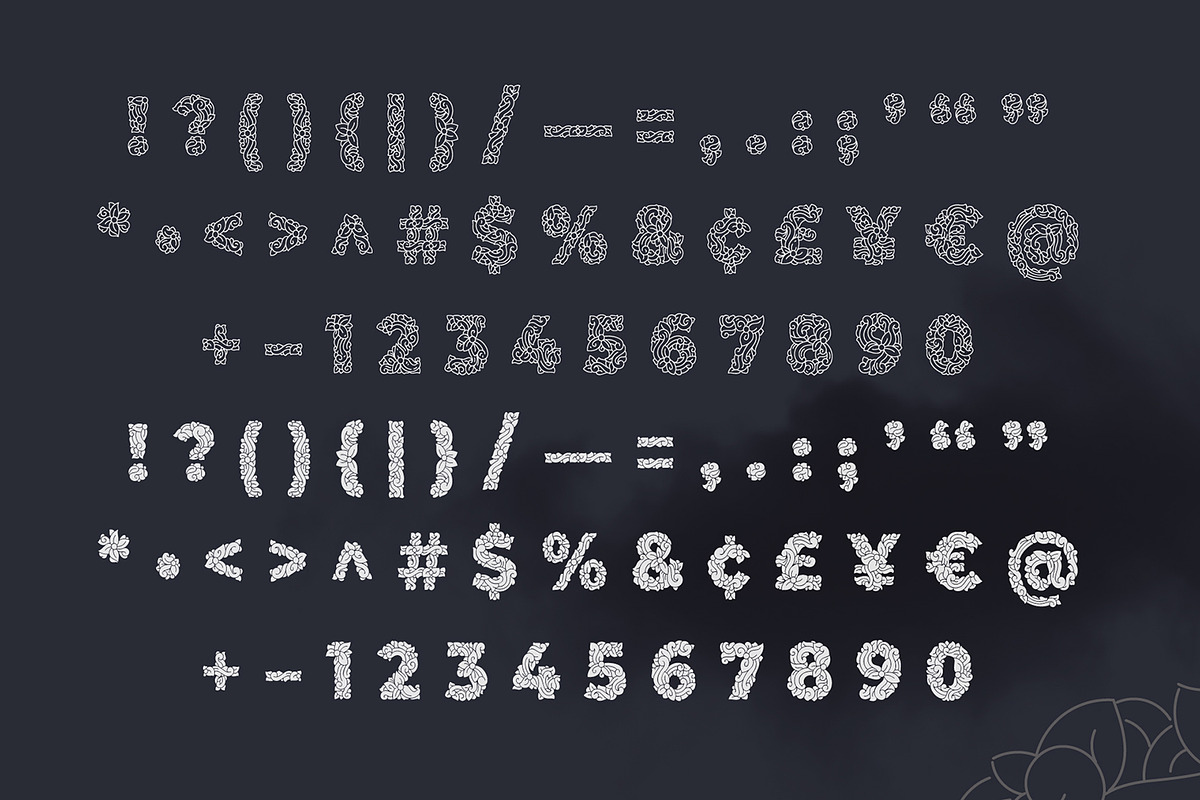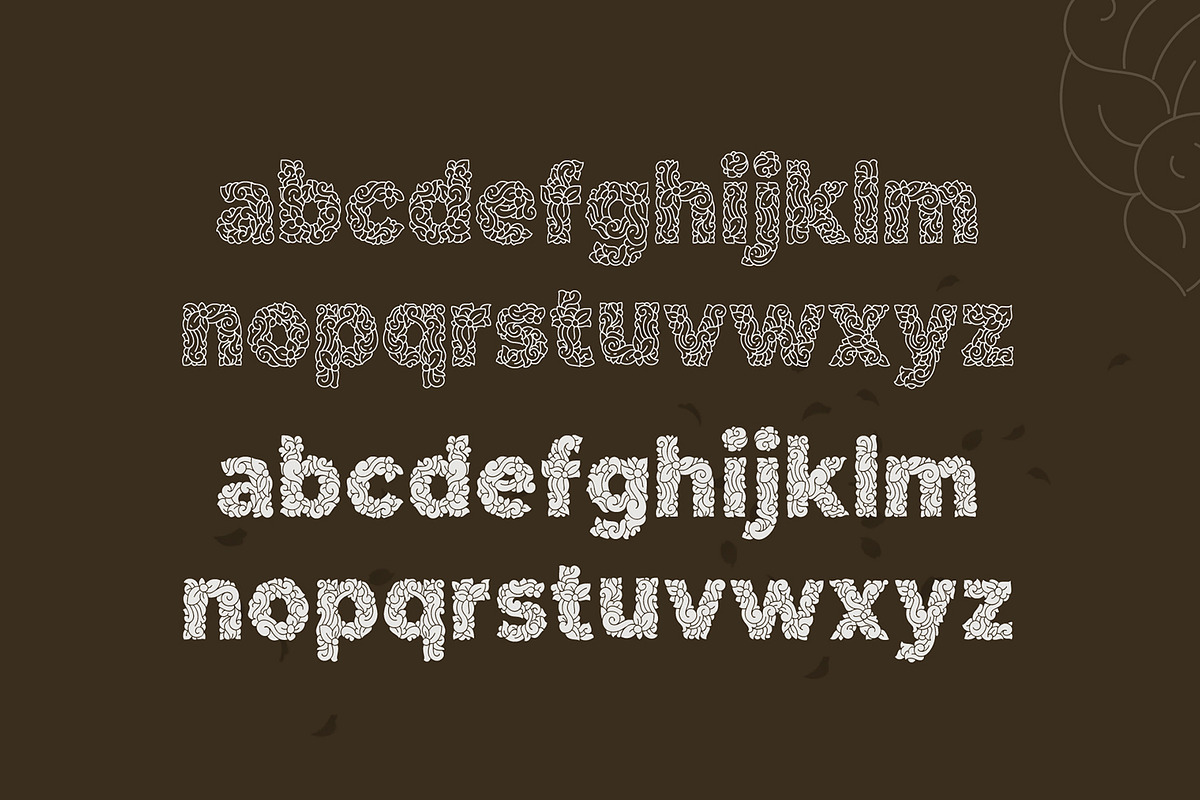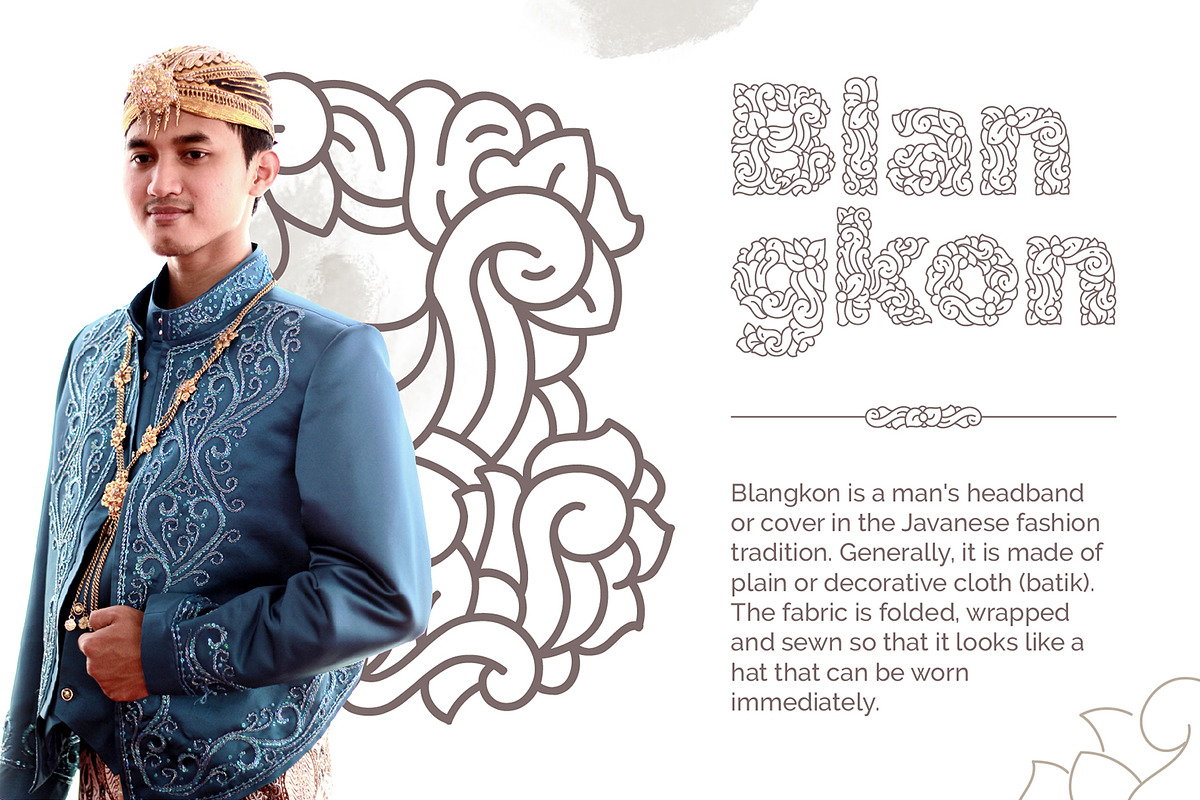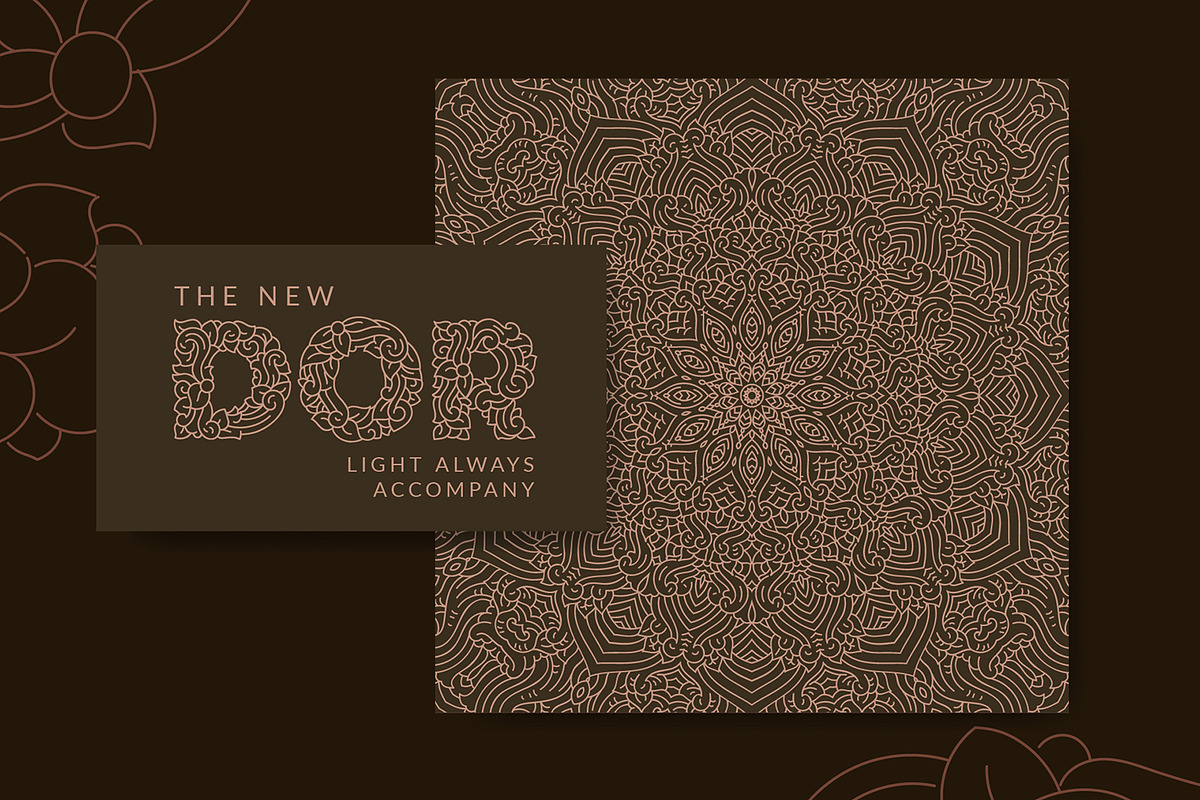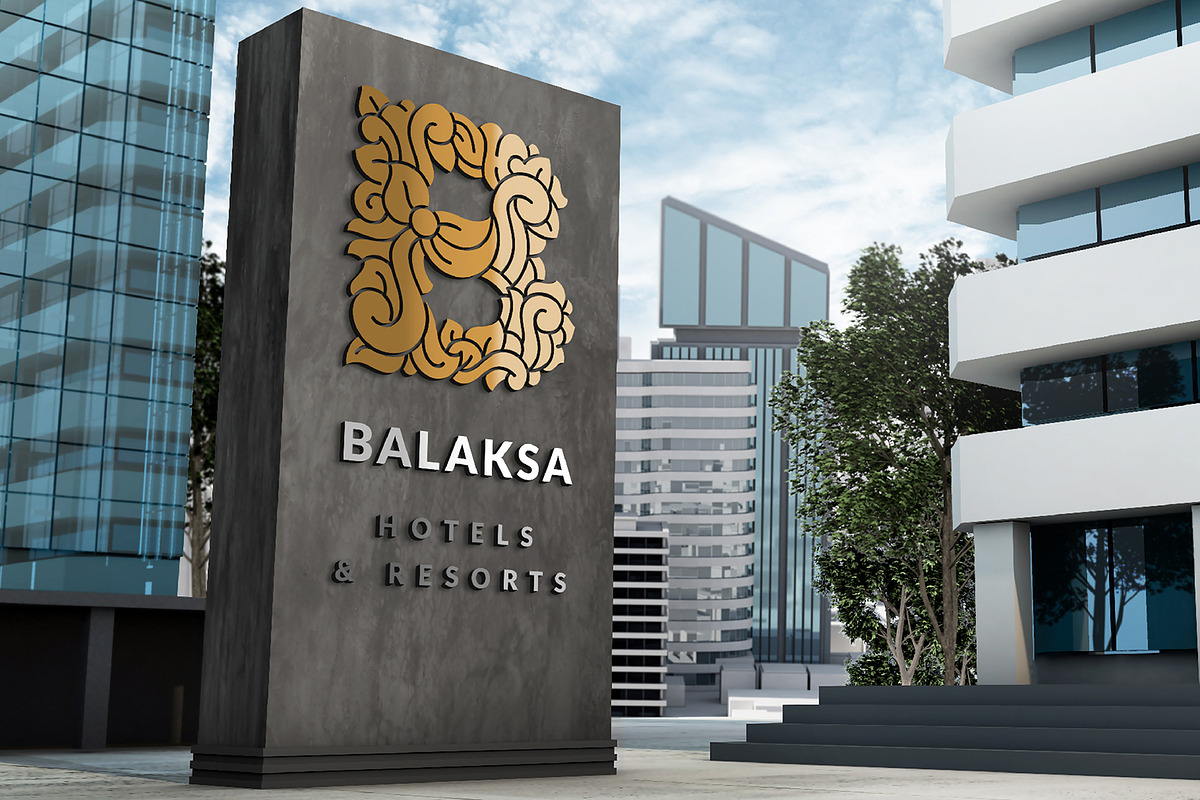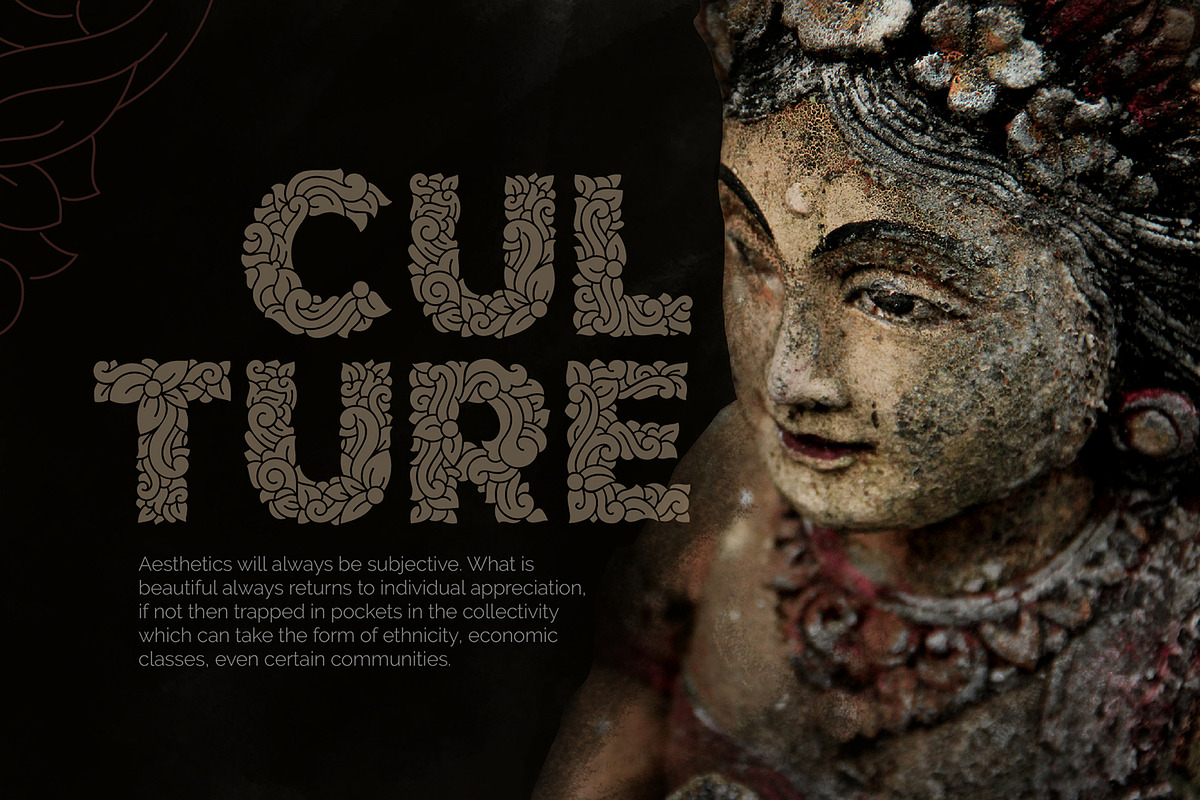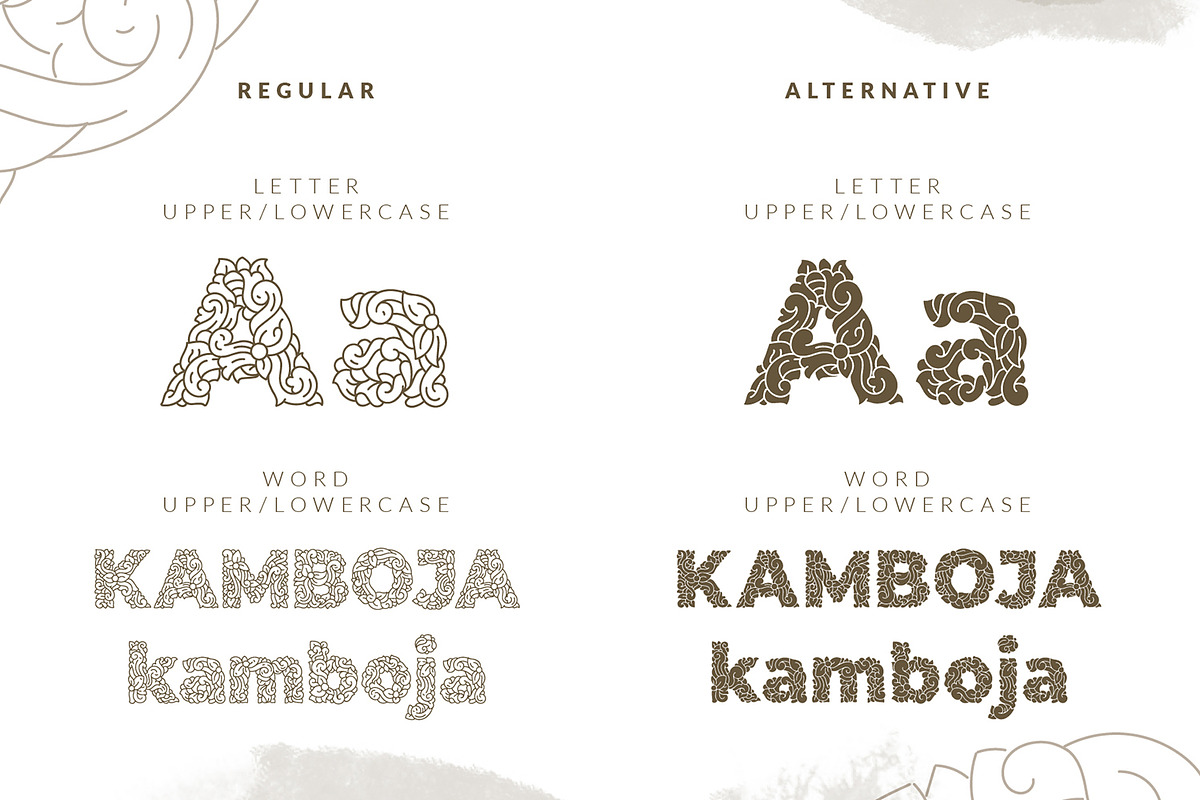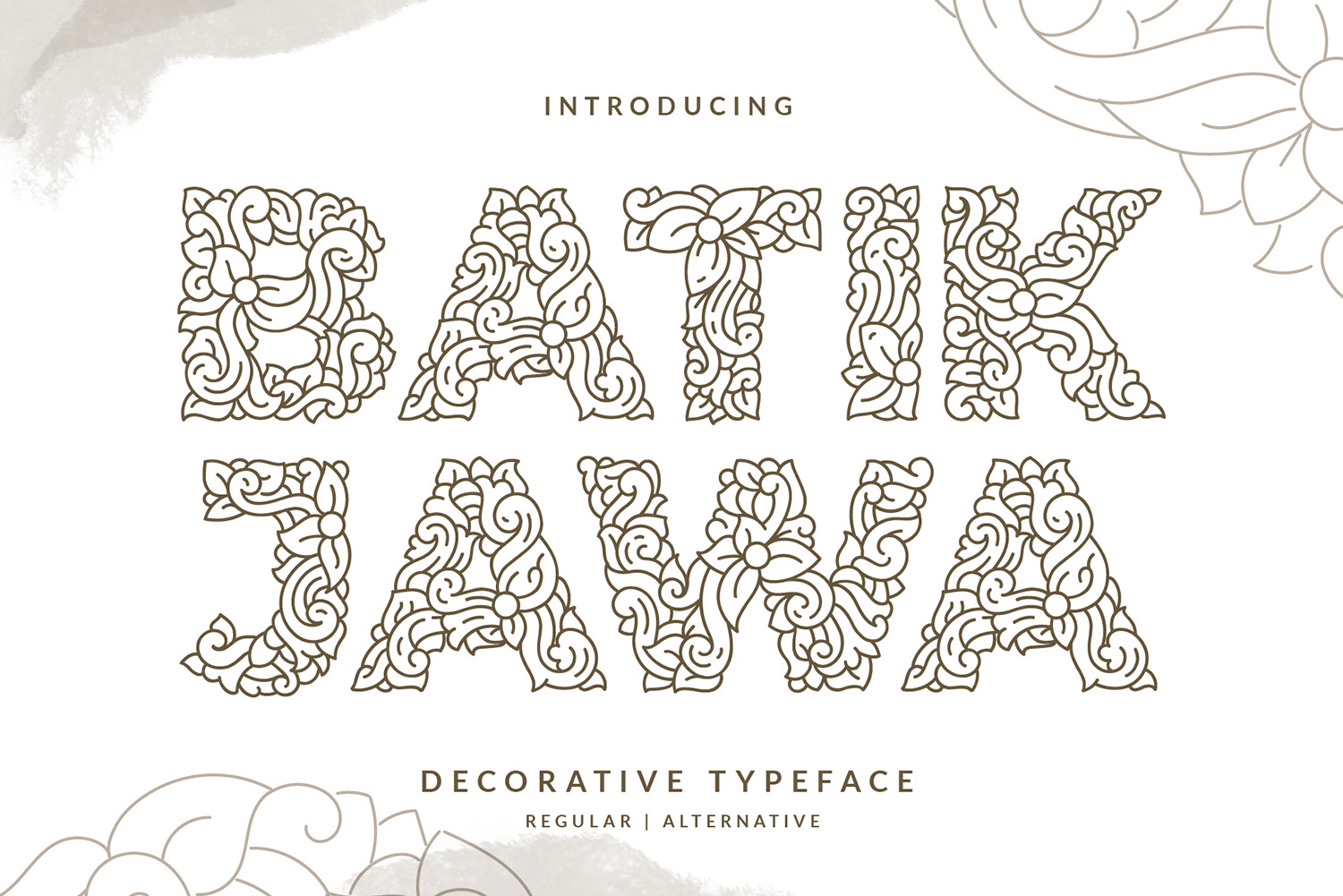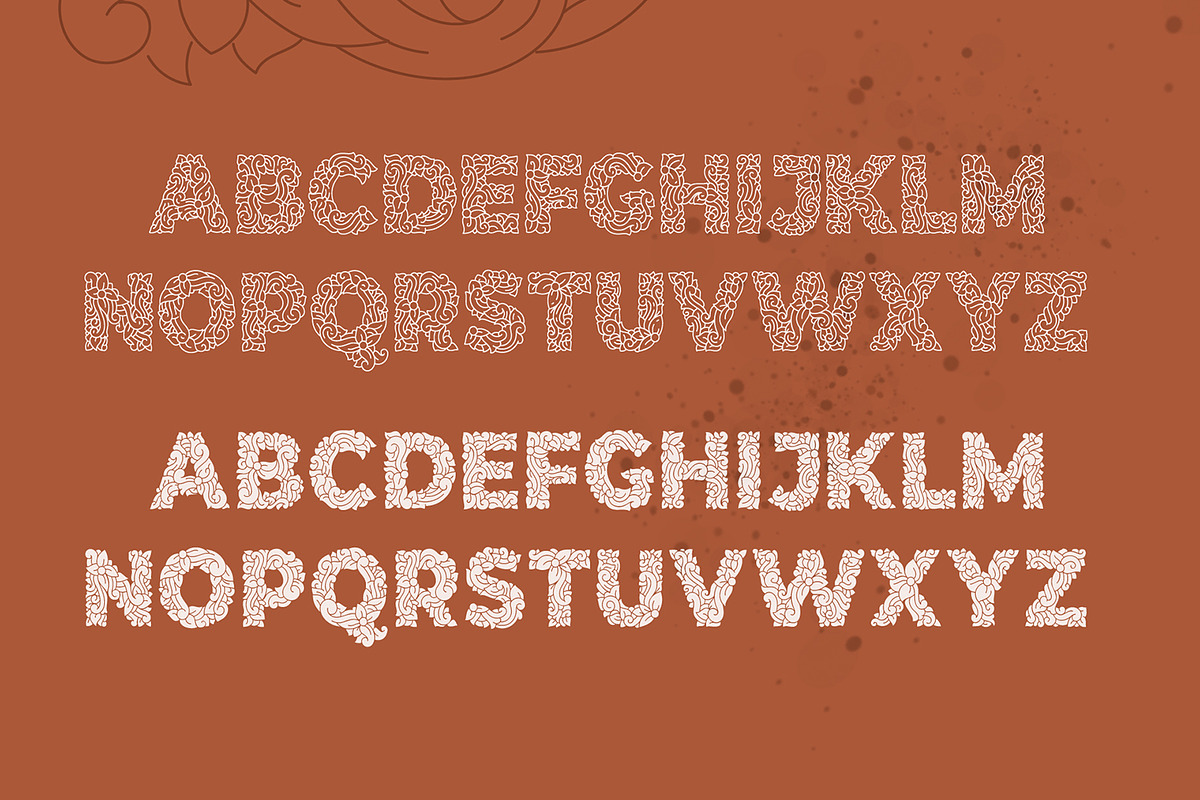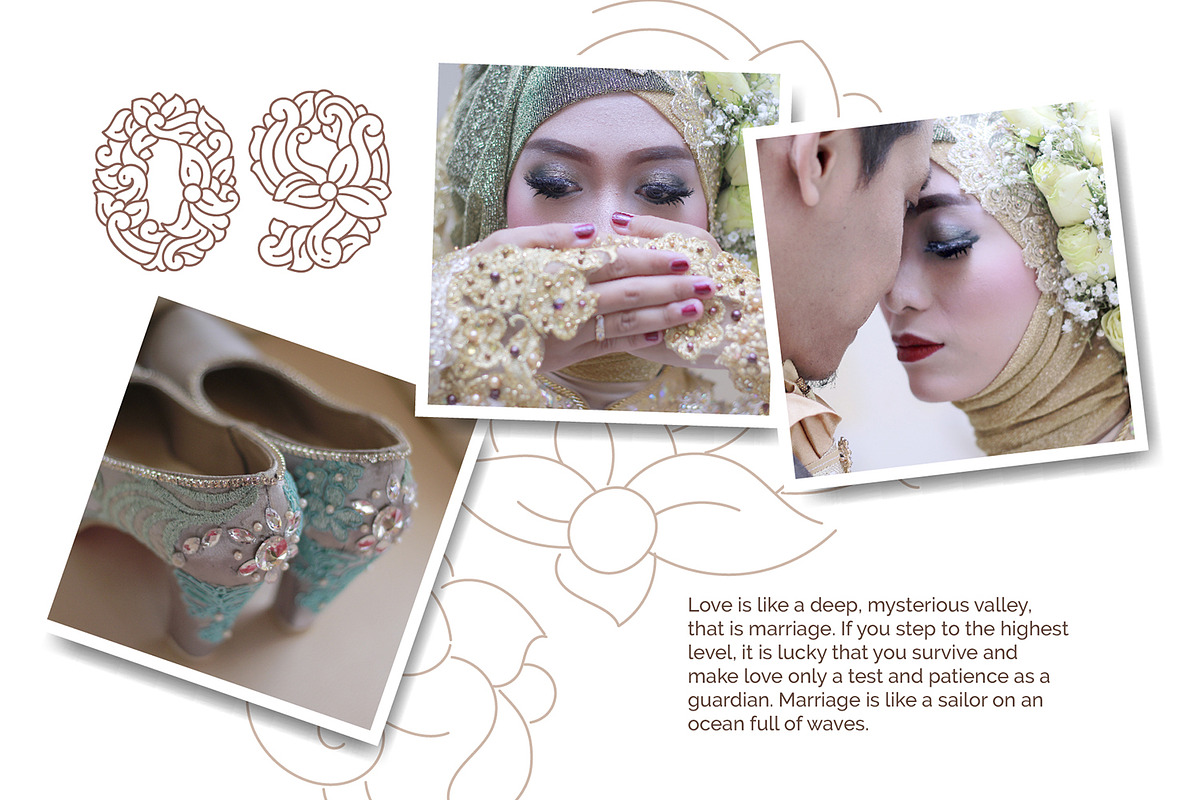
Batik Jawa Modern Decorative Font
Batik Jawa is a decorative typeface/font (victorian style mixed with indonesian batik culture) designed with carefully handcrafted. This perfectly made to be applied in logo or branding, stationery, books, packaging, fashion, magazines, t-shirt, greeting or wedding cards, vintage design, novels, labels and many advertising purposes.